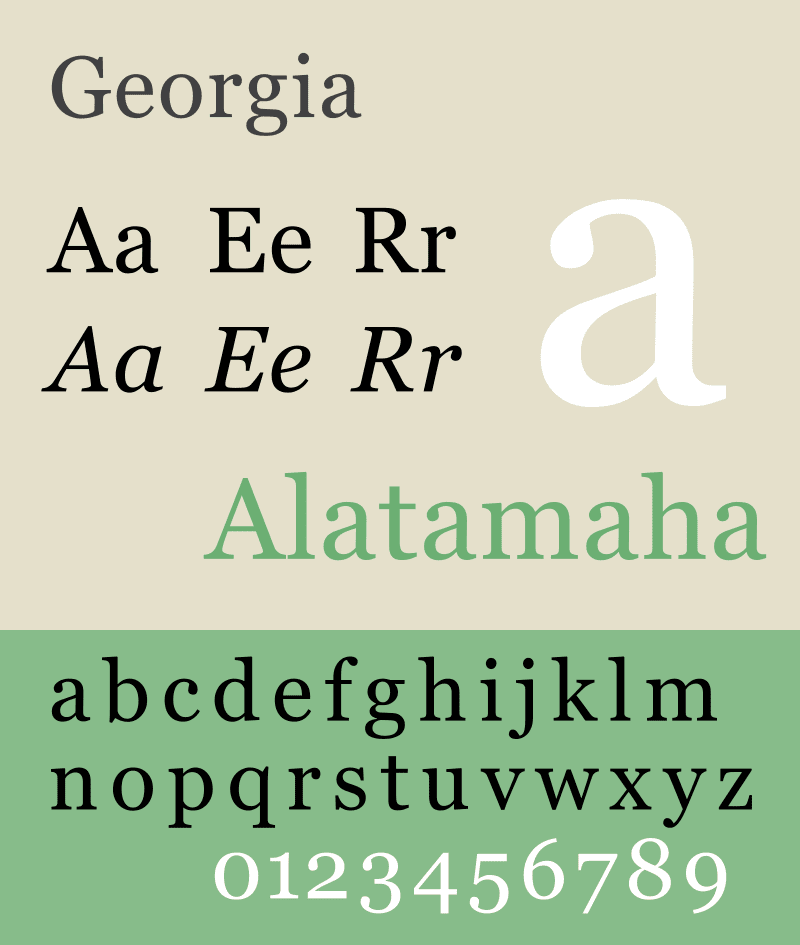
Georgia
Georgia Font Pairing
Georgia font pairing. For an ideal font pairing try sans serif acumin. Simplicity is the name of the game here as you can tell from the minimalistic and relatively flat design of the site. Give 16px a shot for content.
It goes well with proxima nova helvetica neue brandon grotesque arial freight sans lucida grande open sans benton sans helvetica and lato. Alternate gothic georgia. If youre thinking about using georgia then try 24px for headers.
Georgia and lato have similar widths and both have medium x heights helping them pair. All of this text is editable. We also provide some of the best font pairings to use in your next design as well templates you can play around with using the font pairings mentioned.
You might also wonder what fonts pair well with georgia. 36 perfect examples 01. In the examples of georgia you likely noticed designers often combine the serif based georgia with a sans serif font creating a clean crisp look.
Georgia is a transitional serif typeface designed by matthew carter and released in 1996 through microsoft.